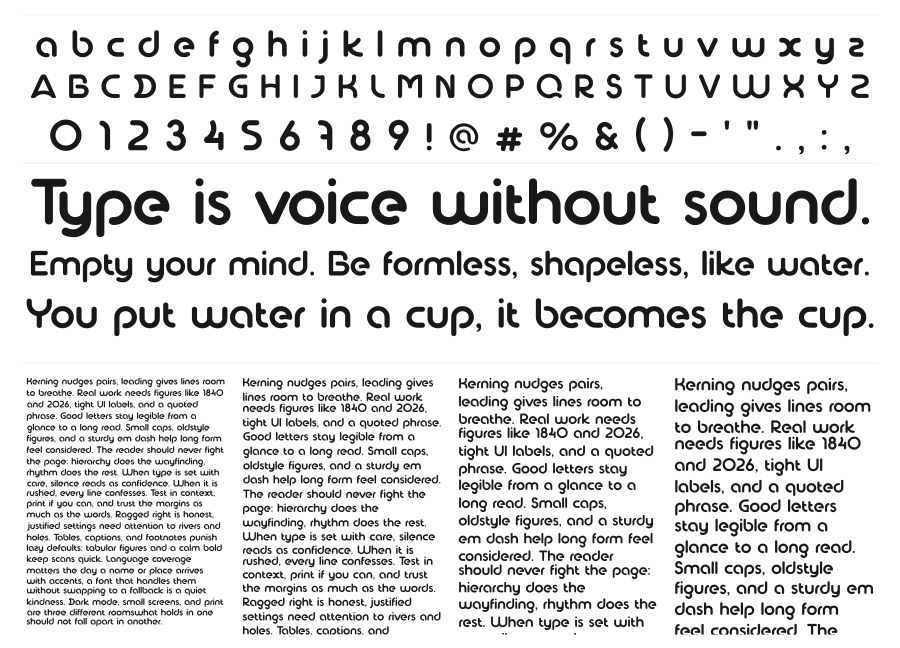
Aremat
Aremat is a geometric rounded sans with fully softened terminals and bold, monoweight strokes. Every curve and corner is smoothed into a continuous rounded flow, giving it a warm, approachable character that sits naturally in consumer-facing branding. It reads clearly at large sizes and carries a distinctly contemporary softness.